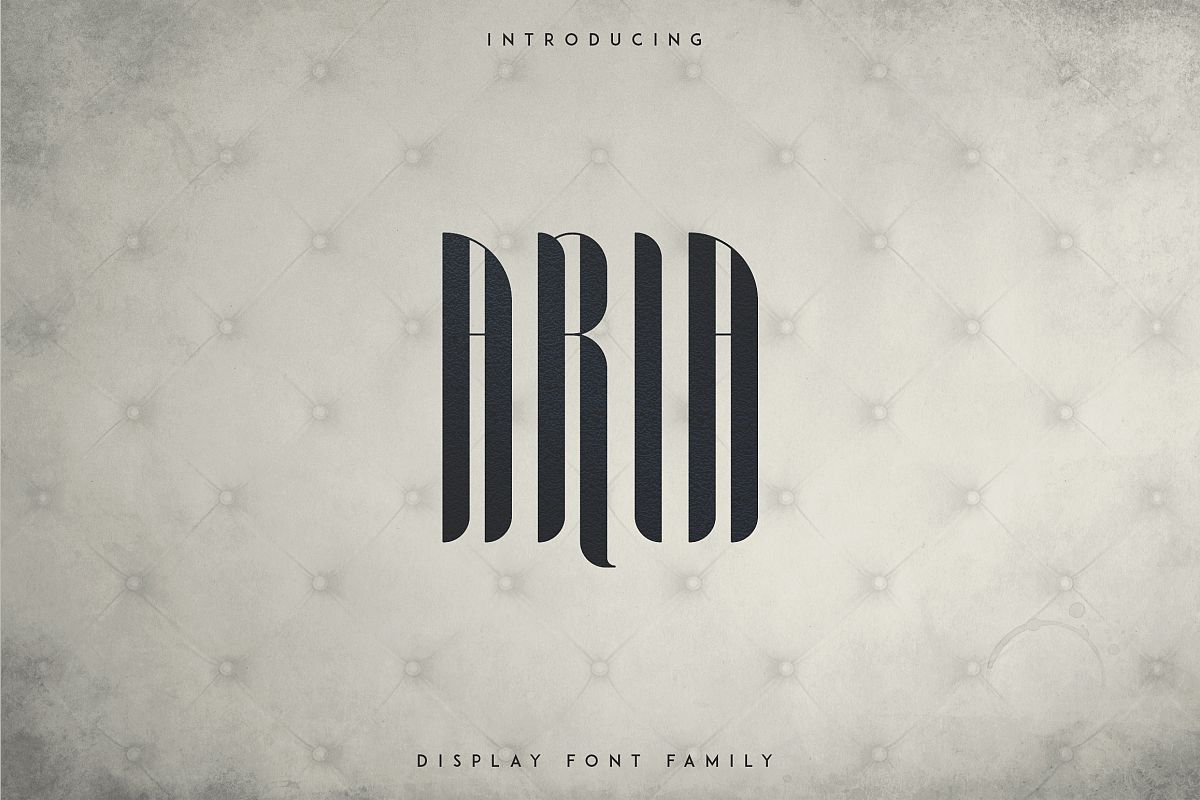
Aria Display font family
Aria
Aria-Bold
Aria-Outline
Aria-OutlineTwo
Aria font family
Aria is long, elegant display typeface with 4 fonts and multilingual support. It's a very versatile font that works great in large and small sizes.
Aria is perfect for branding projects, home-ware designs, product packaging, magazine headers - or simply as a stylish text overlay to any background image.
• Uppercase,lowercase,numeral,punctuation & Symbol
• Multilingual
• Regular
• Bold
• Outline
• OutlineTwo